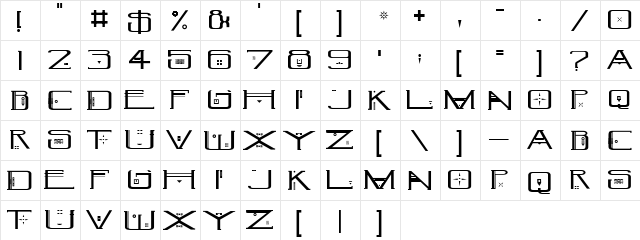
CultLove Ornate Regular
Design Context for CultLove Ornate Typeface
CultLove Ornate is a composed and adaptable typeface that performs quietly and consistently across a wide range of design contexts.